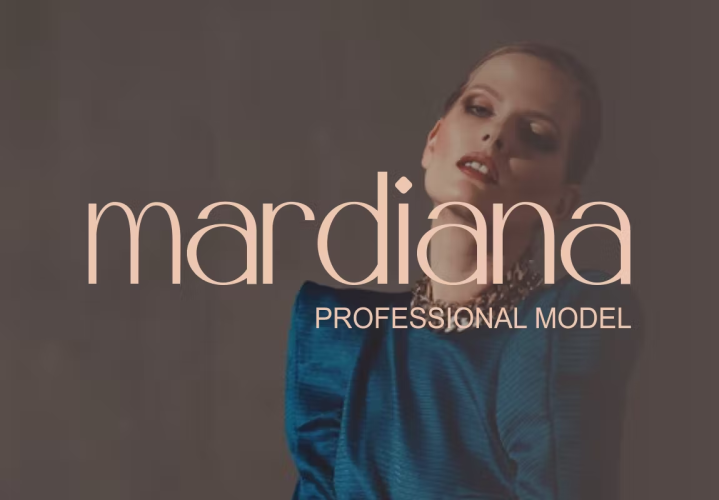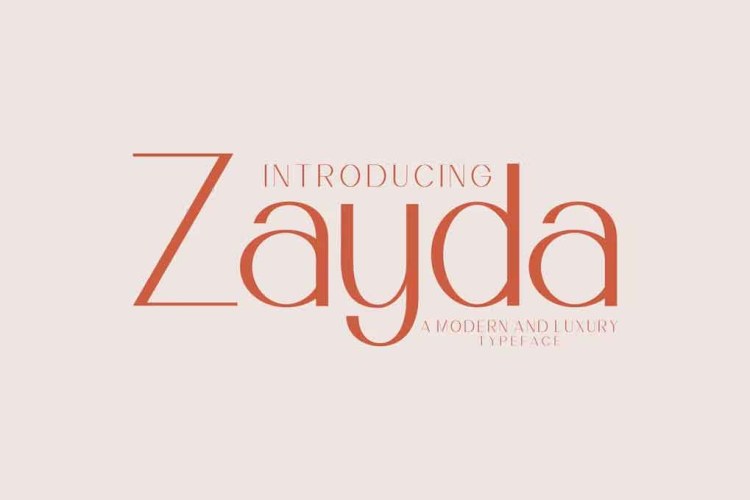
Zayda Modern Sans Serif Font
Introducing of our new product the name is Zayda a Modern Sans Serif Font, Zayda inspired by the upscale luxury style. This font is perfect for posters, social media posts, branding, personal projects, etc.
Where Zayda Modern Sans Serif Font works best
Zayda Modern Sans Serif Font keeps its shape at 14 and 16 pixels, which is where interface text actually lives. Numbers and capitals stay distinguishable in tables.
Presentations are read at a distance; a clean sans with a strong bold is the safest hierarchy you can build in a hurry.
Simple letterforms survive angles, glare and movement, so Zayda Modern Sans Serif Font suits door signs, menus boards and exhibition panels.
What kind of work does Zayda Modern Sans Serif Font suit?
It sits in the Sans Serif Fonts group and reads as branding, luxury, modern, sans serif. That makes it a candidate wherever those qualities help: headings, packaging, social graphics and brand work. Set it at the size you plan to use before deciding.